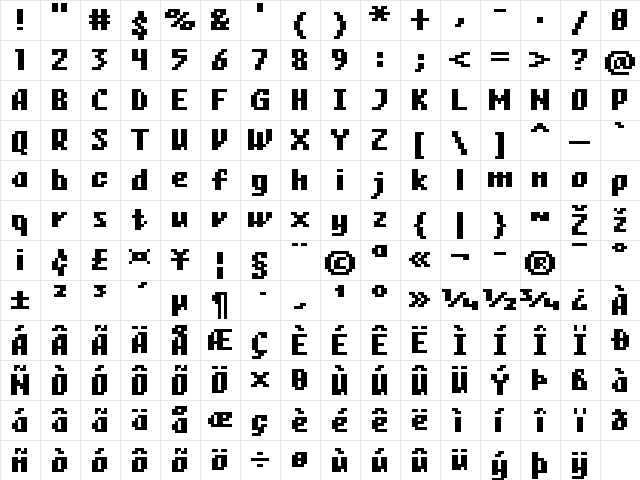
FFF Viewpoint Bold Regular
Design Context for FFF Viewpoint Bold Typeface
FFF Viewpoint Bold takes a measured approach to typography — its balanced proportions and neutral character make it a reliable workhorse for both digital and print work. The heavy weight commands attention and anchors typographic hierarchies.